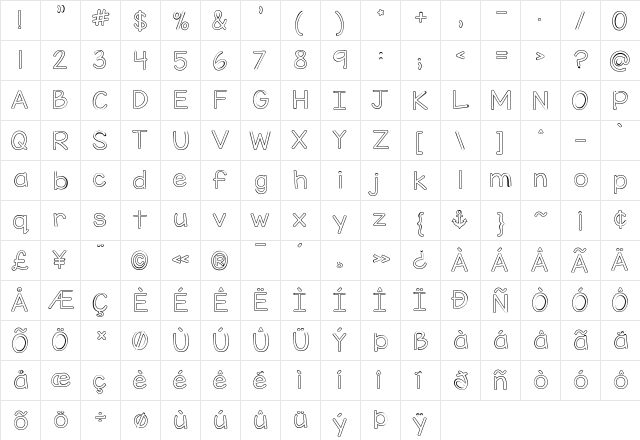
KG Miss Kindy Bubble Regular
| Foundry | Kimberly Geswein |
| Designer | Kimberly Geswein |
Design Context for KG Miss Kindy Bubble Typeface
KG Miss Kindy Bubble trades formality for fun, with bouncy, characterful letterforms that bring warmth and energy to any project.
Font Pairing: Pairs well with a rounded or humanist sans for body copy, maintaining the friendly tone without relying on KG Miss Kindy Bubble to carry extended reading.
Pro Tip: Avoid using KG Miss Kindy Bubble for long passages of text — it works best for headlines, labels, and short calls to action.